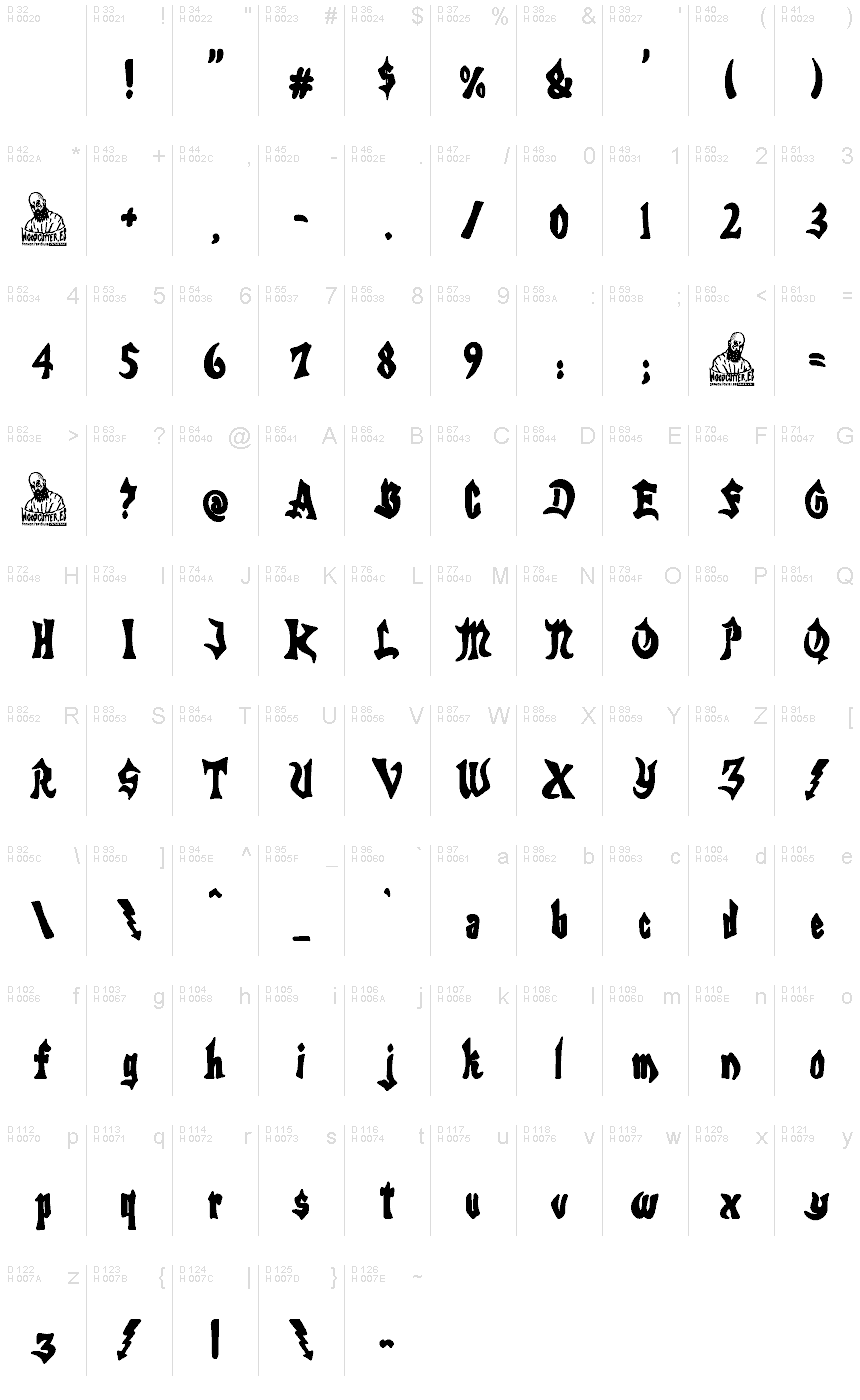
Batallón de Dolor
Batallón de Dolor font by Woodcutter Manero is a dramatic and Gothic-inspired condensed display font. Its bold weight and ornate elements evoke a sense of historical charm with medieval influences. This typeface showcases traditional appeal while maintaining a unique aesthetic that draws attention.